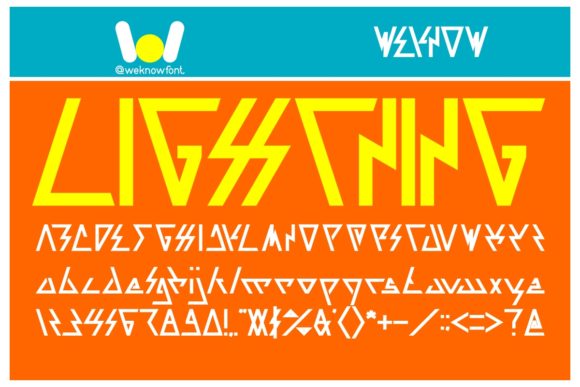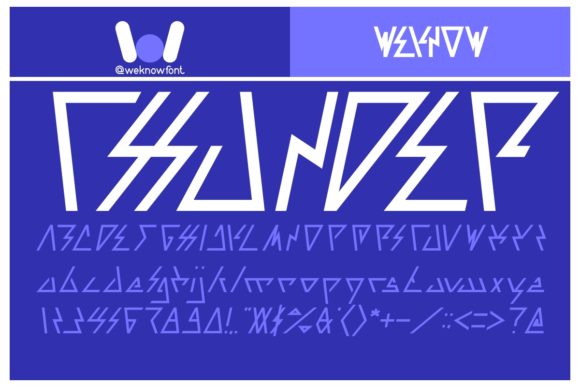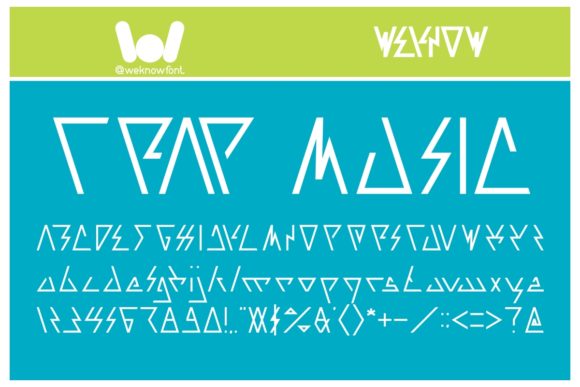
Introduction to Laggtastic Font
Laggtastic is an abstract, sharp, techno display font formed from simplified geometric shapes and lines and creates something truly unique.
Why Choose Laggtastic Font?